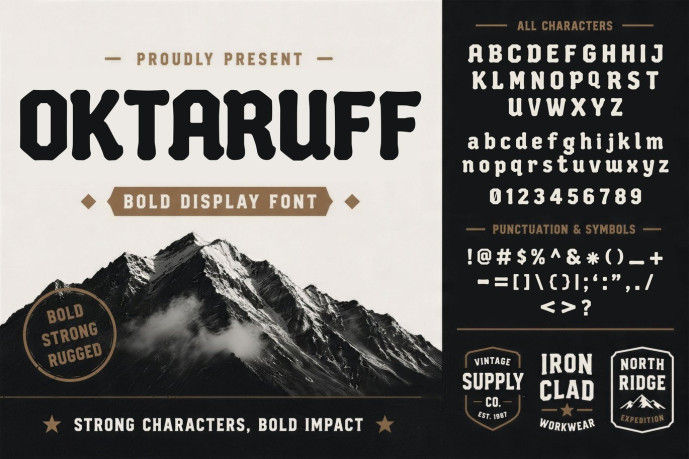
Oktaruff – Bold Rugged Display Font
Designer: Pitchlook
Oktaruff is a bold display font with rugged character, solid construction, and a distinctive vintage-inspired appearance. Its strong letterforms and slightly rough personality make it ideal for creating powerful headlines, memorable brand identities, and adventurous visual concepts. Designed with uppercase, lowercase, numbers, punctuation, and symbols, Oktaruff delivers excellent impact across both modern and retro compositions. You can use this font as a logo design, main headline, supporting font in illustrations, posters, sign boards, and others. Please get it now. Thank you
Main Features
Bold and highly recognizable display style
Strong, rugged, and vintage-inspired character
Uppercase and lowercase letters
Numbers, punctuation, and symbols
Suitable for large headlines and short statements
Works well for outdoor and adventure concepts
Easy to combine with clean sans-serif fonts
Strong readability with a distinctive visual presence